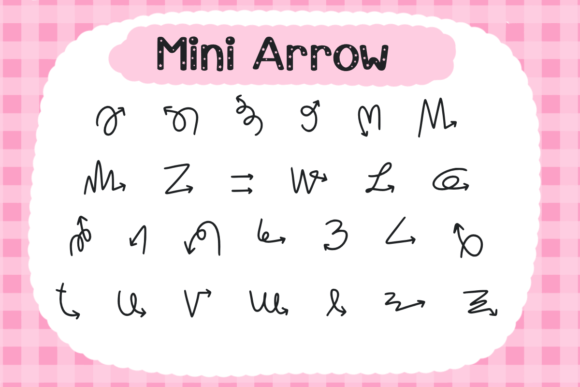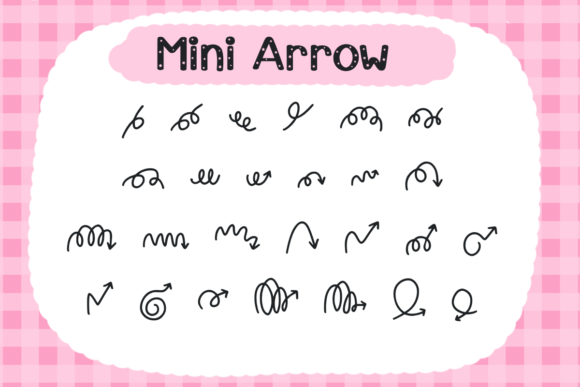
Mini Arrows Font
About Mini Arrows Font
Absolutely! Mini Arrows is a versatile and practical arrow illustration dingbats font that can add a dynamic and stylish touch to your projects. With its collection of arrow symbols, this font is perfect for a wide range of applications.
Digital planners can benefit from the Mini Arrows font by incorporating the arrow symbols to indicate important dates, events, or tasks. Use the various arrow designs available in the font to add visual cues and organization to your digital planner pages. The arrows can also be used to create bullet points or highlight specific sections.
Posters and flyers can be enhanced with the Mini Arrows font. Whether you’re designing promotional materials, event announcements, or informational posters, the arrow symbols can be used to create eye-catching layouts and guide the viewer’s attention. Use the arrows to indicate directions, point to important information, or create visual movement within your designs.
Journaling enthusiasts will find the Mini Arrows font perfect for adding decorative elements to their journal pages. The arrow symbols can be used as design accents, dividers, or bullet points to create visually appealing and organized layouts. Combine the arrows with text or other illustrations to create unique and personalized journal spreads.
Stickers become even more fun with the Mini Arrows font. Use the arrow symbols to create sticker designs for planners, scrapbooks, or any other paper crafts. The versatility of the arrow designs allows you to create stickers for various themes and purposes, adding a touch of style and functionality to your projects.
Digital designs, such as social media graphics or website elements, can benefit from the Mini Arrows font. Use the arrow symbols to create visually engaging icons, navigation buttons, or decorative elements that add a sense of movement and direction to your designs.
In summary, Mini Arrows font is a useful and versatile dingbats font that can elevate your projects. Whether you’re designing digital planners, posters, journaling layouts, stickers, or any other creative endeavor, the arrow symbols in this font will add a touch of style and functionality. So go ahead and incorporate the Mini Arrows font into your designs to create visually appealing and dynamic compositions!